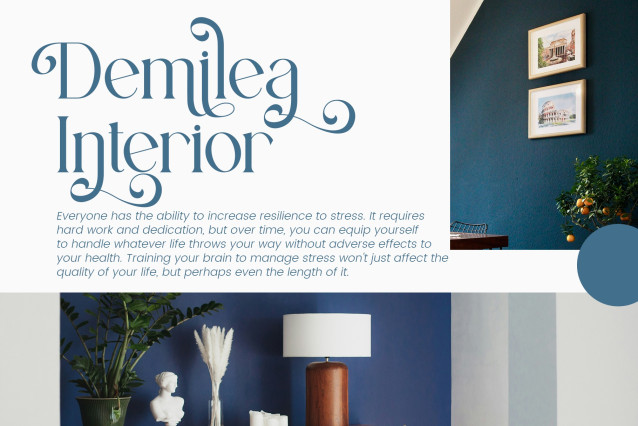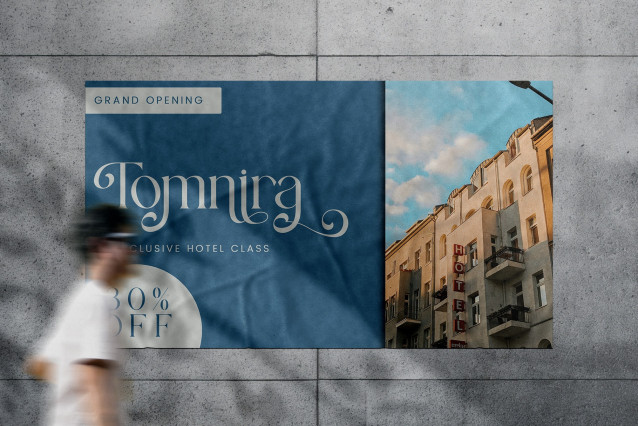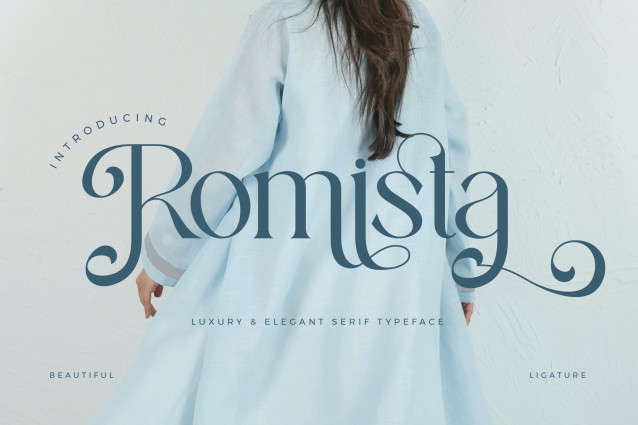
Romista – Luxury Elegant Serif Font
Romista Stylish Ligature Typeface, inspired by the famous minimalist logo perfect for the purposes of designing templates, brochures, videos, advertising branding, logos and more.
– Ligatures